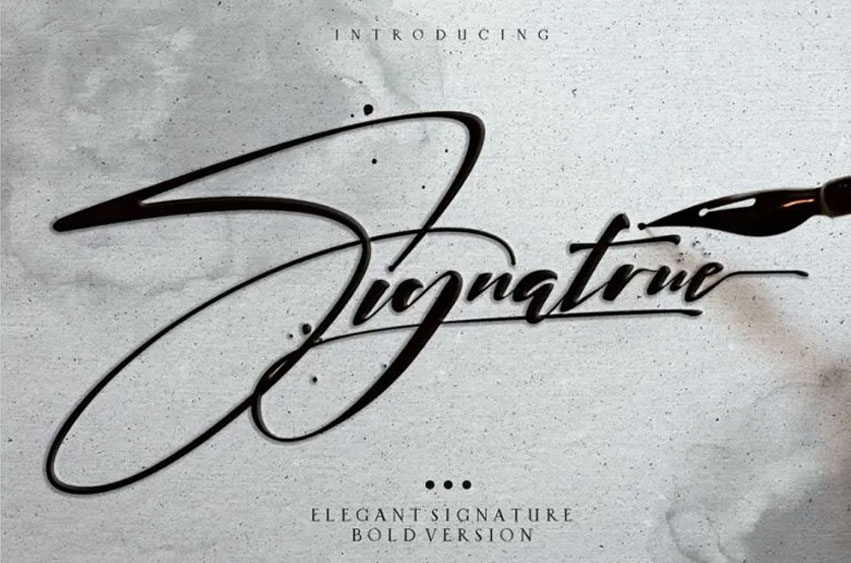
Signatrue Font
Signatrue Font if you are looking for a genuine typeface, then this is it. The Signature with its amazing features that resemble the natural handwriting will definitely be of use to any project. Include it to your font collection as a gift from typeline studio!
This font is the best for logos, branding projects wedding designs social media posts advertising packaging for products product designs labels photos watermarks invitations stationery and other projects that call for handwriting skills.